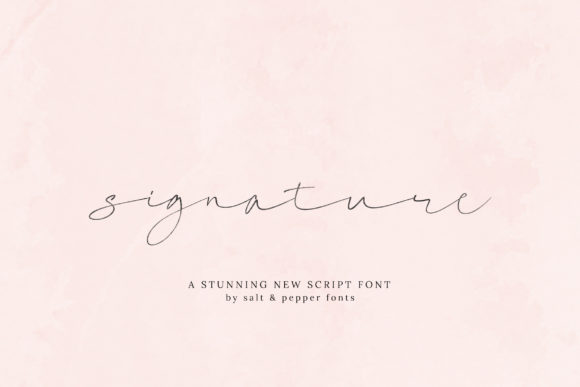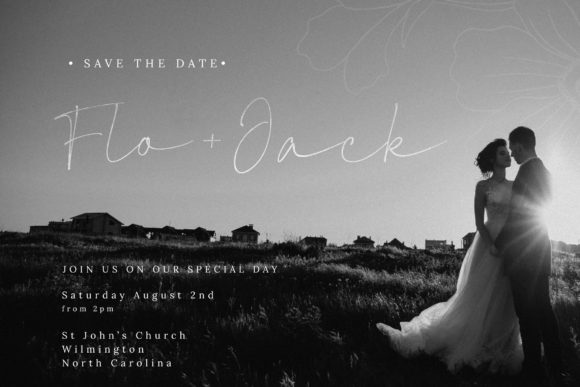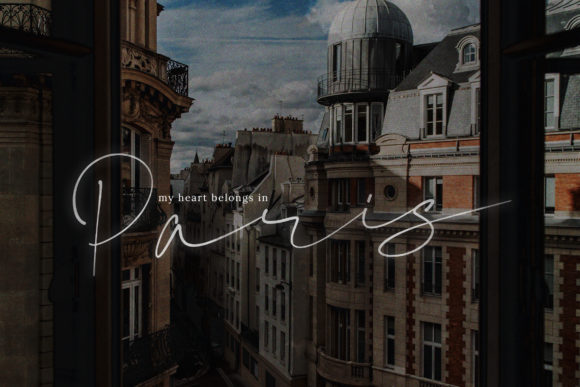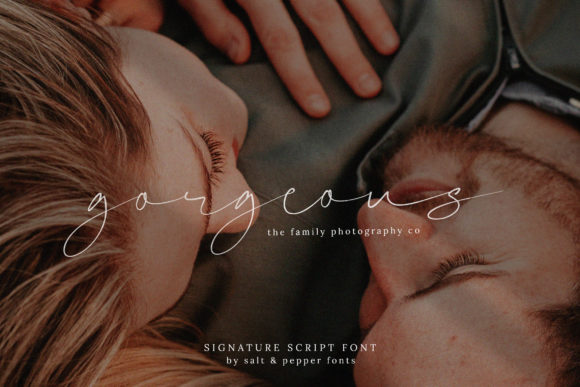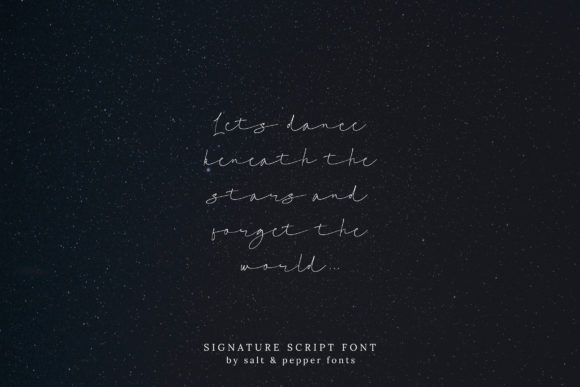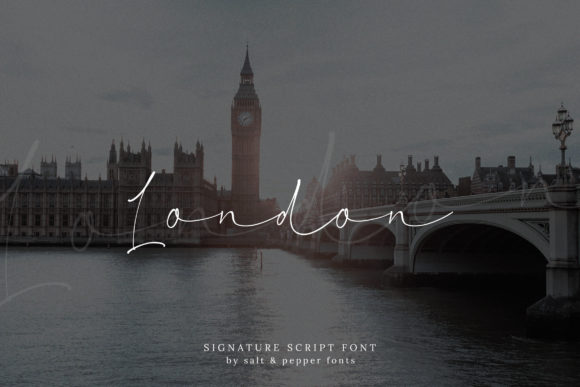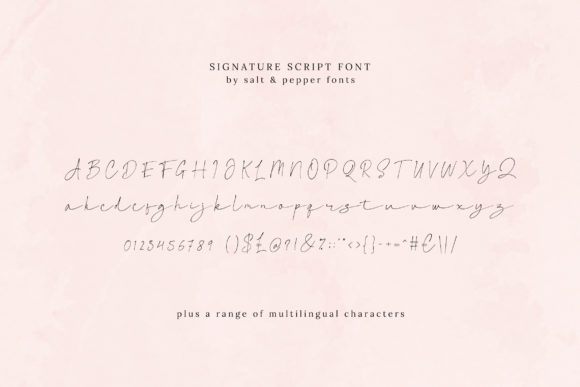
Signature Script Font
About Signature Script Font
Signature Script is a thin lettered and elegant handwritten font. It looks beautiful on a variety of designs requiring a personalized style, such as wedding invitations, thank you cards, weddings, greeting cards, logos and so on.